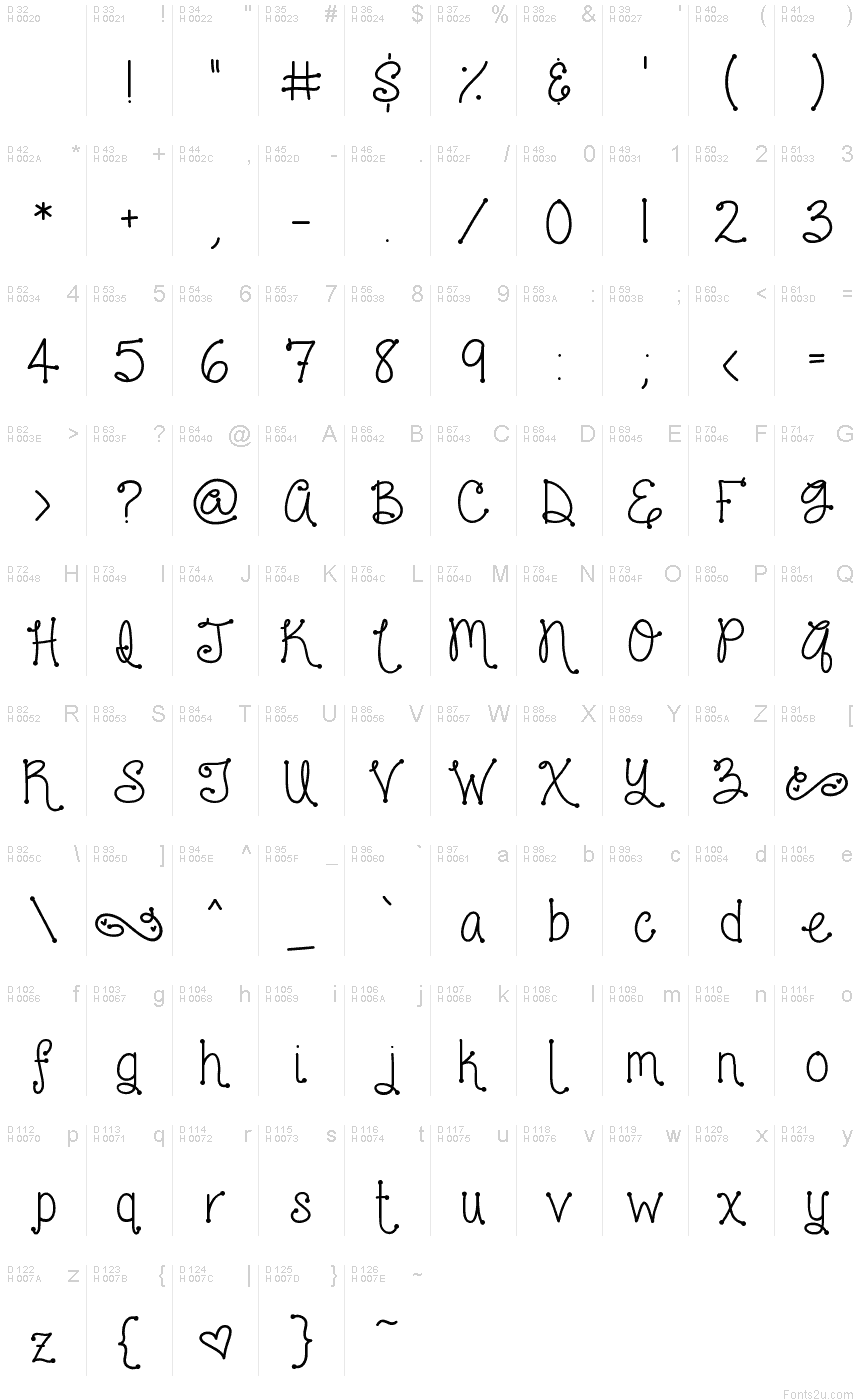
Love and laughter
Love and Laughter by Vanessa Bays of ByTheButterfly.com is a free handwritten font with tall, loosely drawn letters, uneven joins, and a lively, wandering baseline. Rounded strokes end in dot-like tips throughout.
Themes of affection, friendship, and celebration suit its open loops and playful shifts in height, making it useful for greeting cards, party invitations, and scrapbook titles with balloons, doodles, or candid photos. Its informal marks also fit children's craft packaging and family event posters aimed at younger readers and parents who respond to lettering that feels personal, homemade, and cheerfully unpolished.